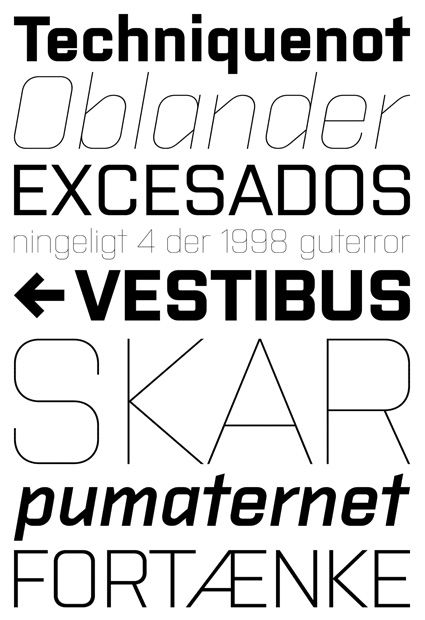
Purista (Suitcase Type Foundry)
Purista is a strict, orderly typeface based on a well-tried principle of
geometric sans serifs from mid-20th century. Its obsession with
technological precision makes it perfect for use in corporate systems
and visual communications of technocratic businesses. Thanks to
its broad range of cuts, it is also ideal for display advertising.